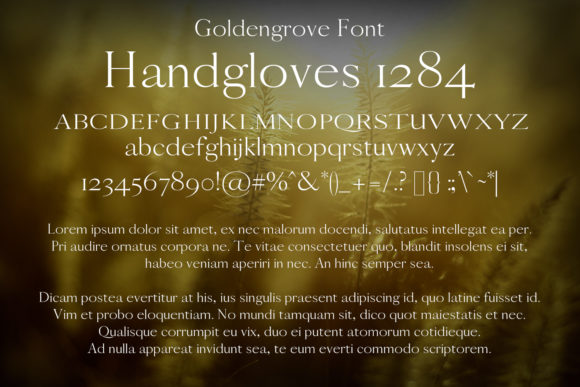
Introducing Goldengrove Font: Elevate Your Designs with Elegance
Are you on the hunt for a font that exudes sophistication, elegance, and versatility? Look no further than Goldengrove Font, a stunning thin and clean serif font that can elevate your creative projects to new heights. With its classic charm and modern appeal, Goldengrove is the perfect addition to your font collection, allowing you to add a touch of refinement to your designs.
The Characteristics of Goldengrove Font
Goldengrove Font boasts a range of characteristics that make it an exceptional choice for designers and crafters. Its thin and clean lines create a sense of airiness and sophistication, making it ideal for projects that require a touch of elegance. The serif details add a level of classic charm, while the overall design ensures that the font remains highly legible, even at smaller sizes.
One of the standout features of Goldengrove Font is its incredible versatility. This font can be matched to an incredibly large set of projects, from:
- Headings and titles
- Body text and paragraphs
- Signage and advertising
- Packaging and labels
- Digital media and websites
Whether you’re working on a corporate project, a personal blog, or a creative endeavor, Goldengrove Font can help you achieve your design goals.
Why Choose Goldengrove Font?
So, what sets Goldengrove Font apart from other fonts on the market? Here are just a few reasons why designers and crafters love working with this font:
- Elegant and sophisticated: Goldengrove Font adds a touch of refinement to any project, making it perfect for designs that require a level of luxury or sophistication.
- Highly legible: The clean lines and classic serif details ensure that Goldengrove Font remains easy to read, even at smaller sizes.
- Versatile: With its wide range of applications, Goldengrove Font is an excellent addition to any font collection.
Tips for Using Goldengrove Font
To get the most out of Goldengrove Font, here are a few tips to keep in mind:
- Pair with bold fonts: Combine Goldengrove Font with a bold font to create visual interest and add depth to your designs.
- Experiment with colors: Goldengrove Font looks stunning in a range of colors, from metallic tones to rich jewel tones.
- Play with sizes: Use Goldengrove Font in a range of sizes to create visual hierarchy and add emphasis to your designs.
In conclusion, Goldengrove Font is a stunning thin and clean serif font that can elevate your designs to new heights. With its elegant and sophisticated charm, versatility, and high legibility, it’s the perfect addition to your font collection. Whether you’re a designer, crafter, or DIY enthusiast, Goldengrove Font is sure to become a favorite. So why wait? Add Goldengrove Font to your creative toolkit today and discover the difference it can make in your designs!